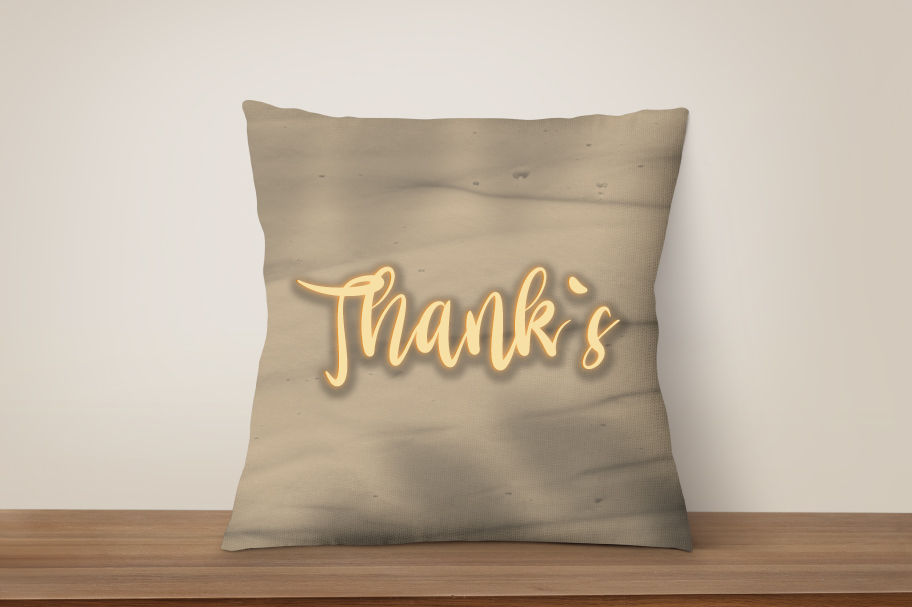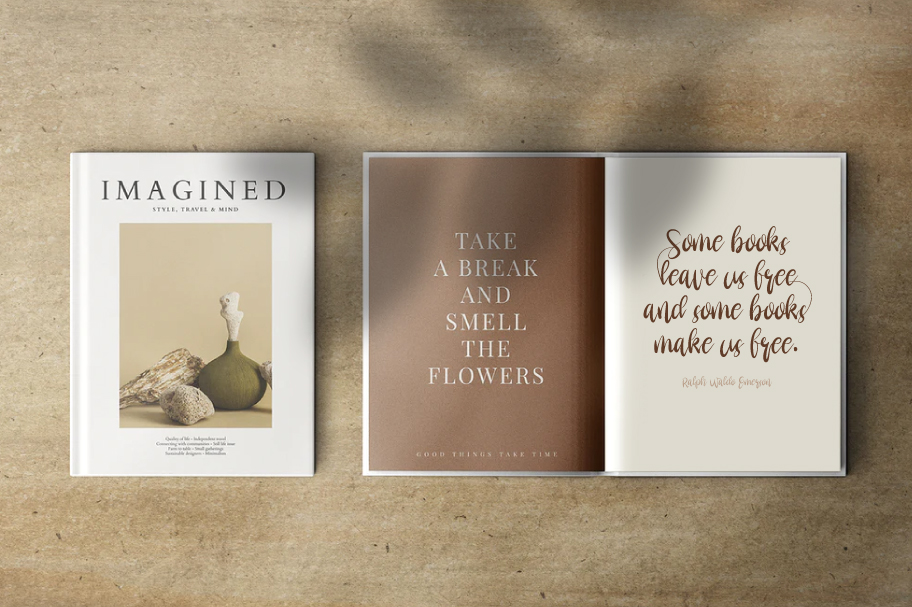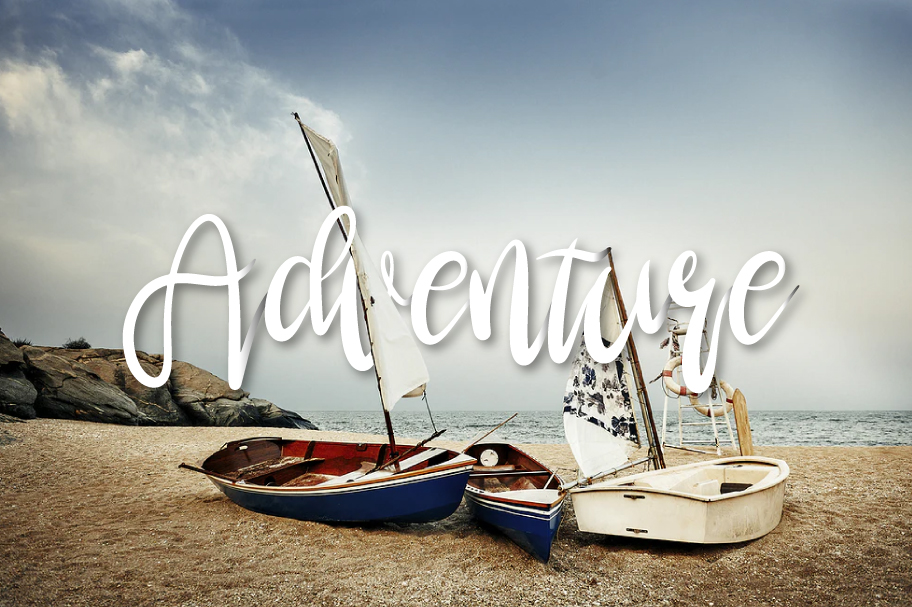
Batok Font
Batok Script Font
This is a lovely and timeless handwritten font. It is the best choice for creating eye catching logos, branding and quotes. This font is PUA encoded which means you can access all of the glyphs and swashes with ease!